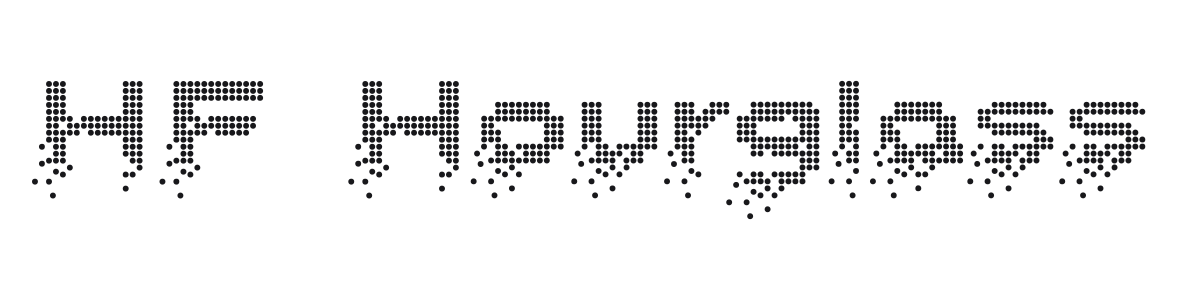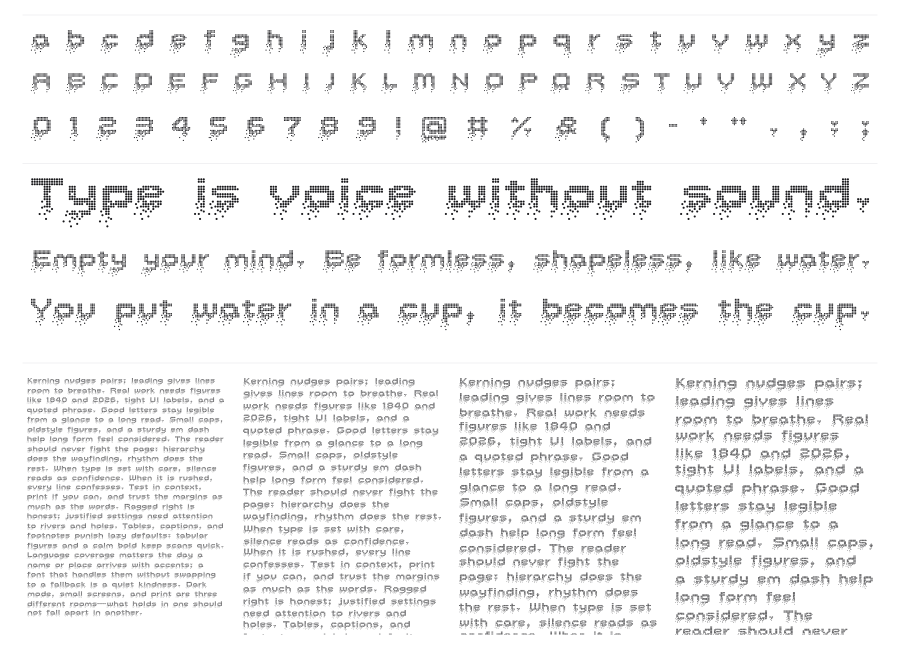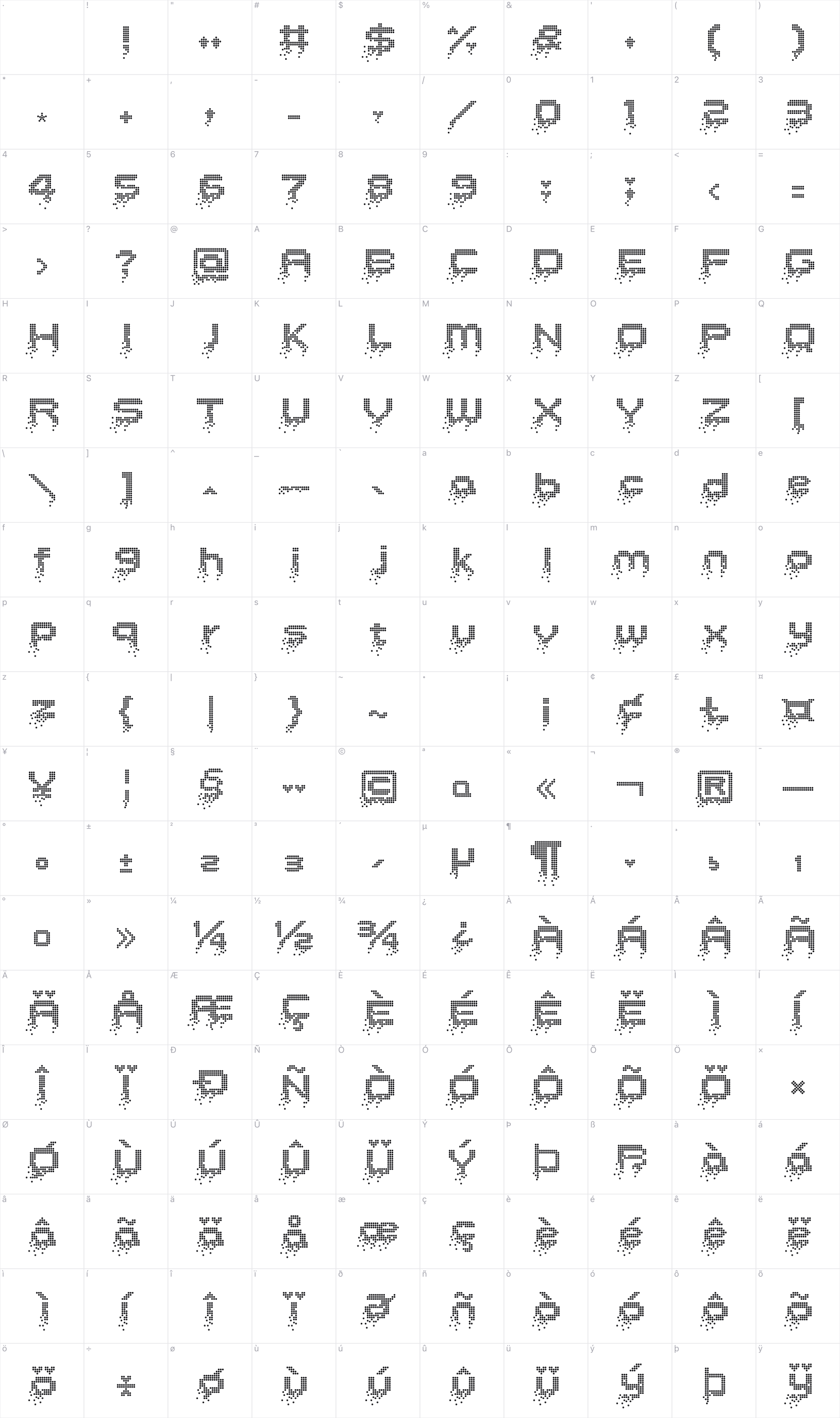
HF Hourglass
HF Hourglass is a dot-matrix display font built entirely from uniform circular dots, mimicking the look of early LED scoreboards and digital signage. Every character is assembled from a tight grid of small, evenly spaced circles with no stroke contrast or variation in dot size. The result sits somewhere between retro arcade cabinet and contemporary pixel art.